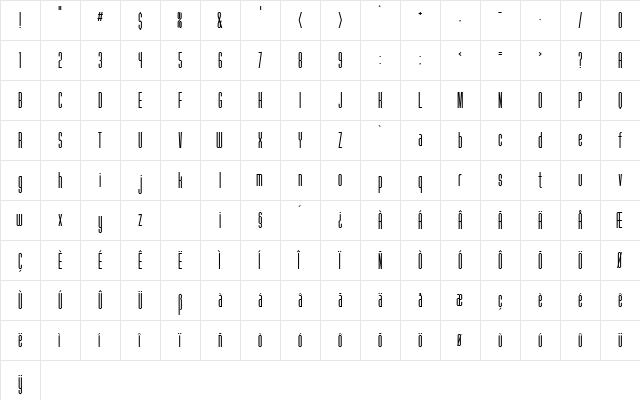
FanatiqueReg Regular
Design Context for FanatiqueReg Typeface
FanatiqueReg is a composed and adaptable typeface that performs quietly and consistently across a wide range of design contexts.